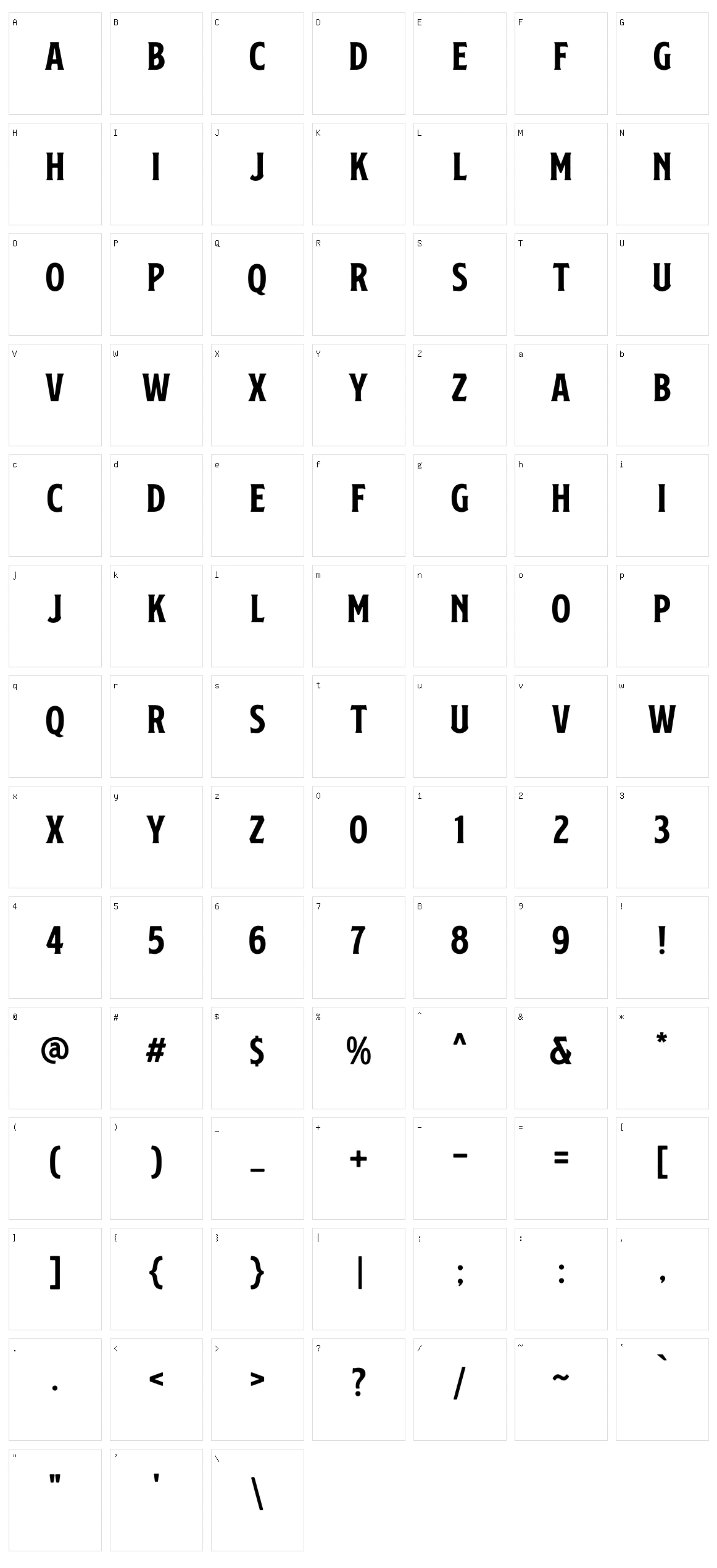
The free font S&S Nickson One is carefully designed by Ephemera Fonts, showcasing a thoughtful balance of creativity and usability and falls under the Retro font style. When you download the ZIP file, it contains only 145.55 KB of font files, making it lightweight and quick to download. Please review the license details below to understand permitted usage and distribution rights. If license information is not available, we recommend using this font for personal projects only or contacting the author directly for commercial usage permissions.